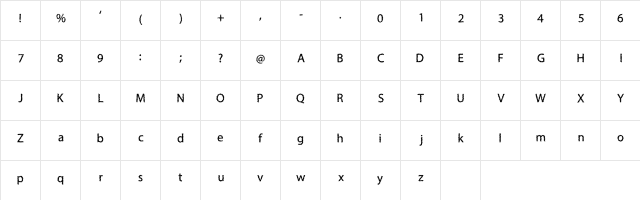
H4 Bushes Font Regular
Design Context for H4 Bushes Font Typeface
H4 Bushes Font takes a measured approach to typography — its balanced proportions and neutral character make it a reliable workhorse for both digital and print work.